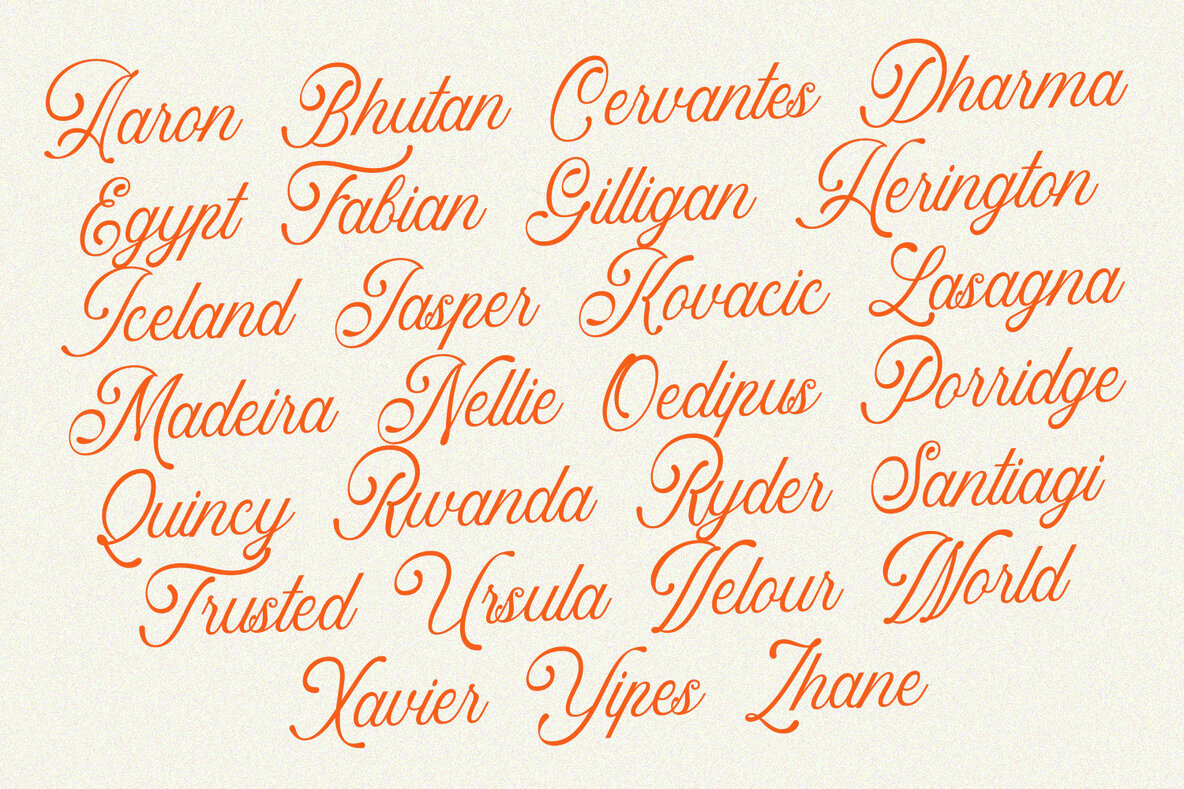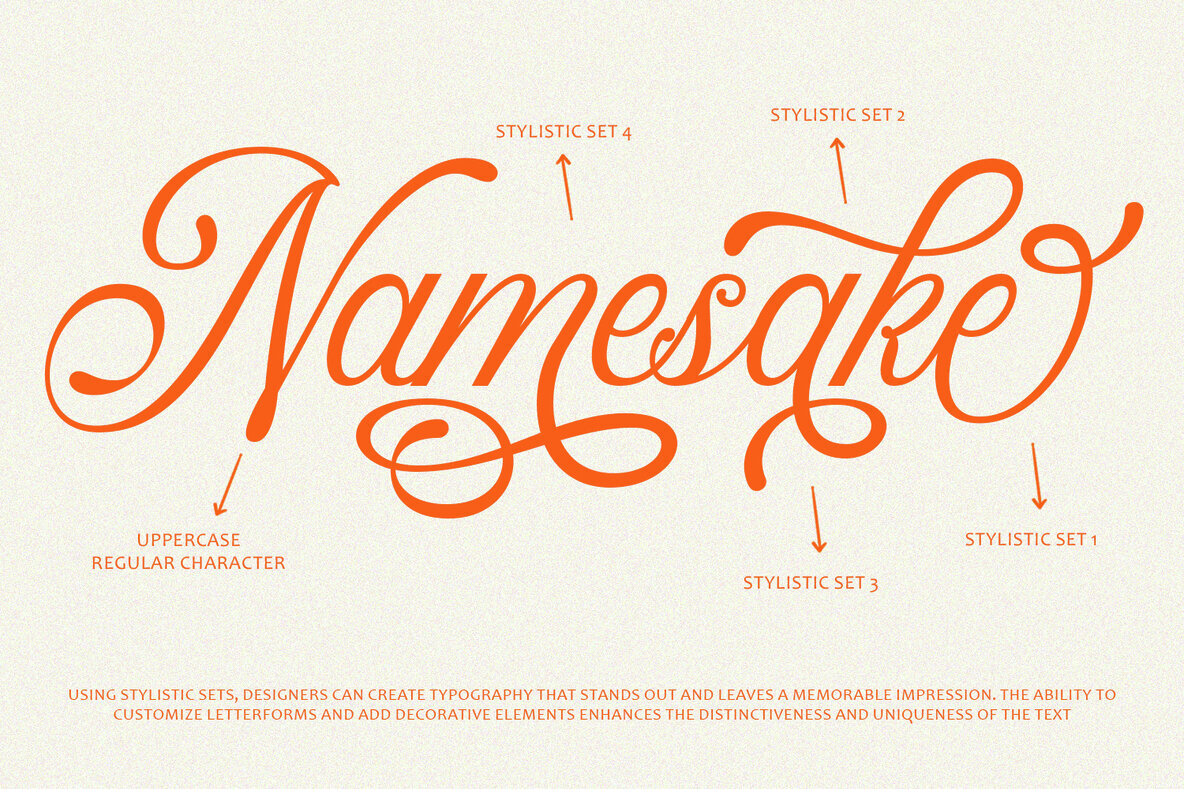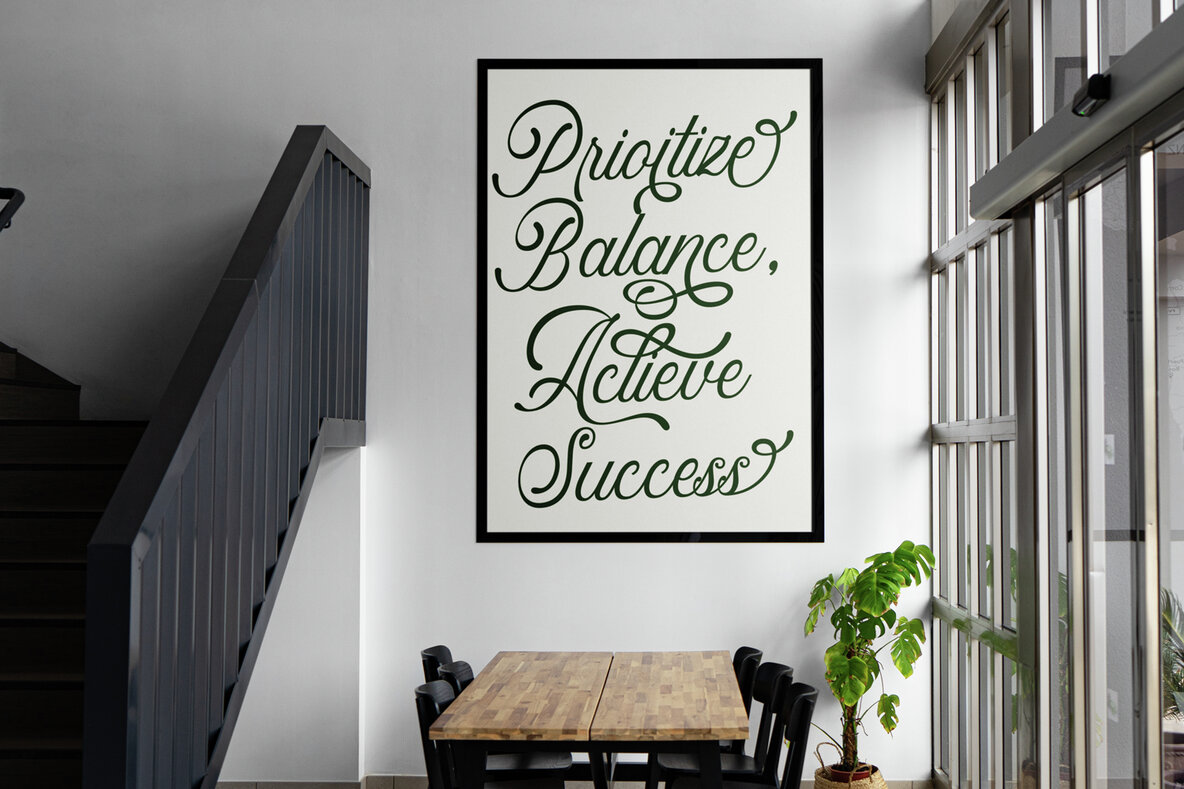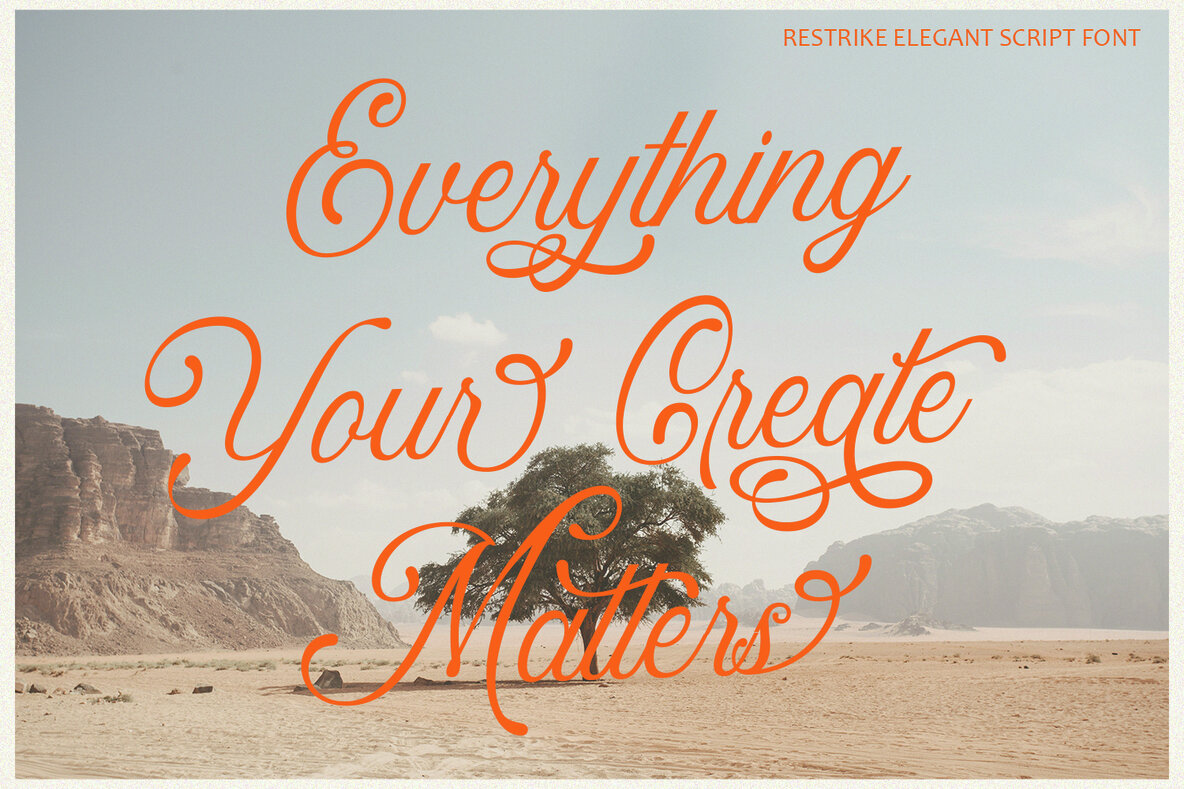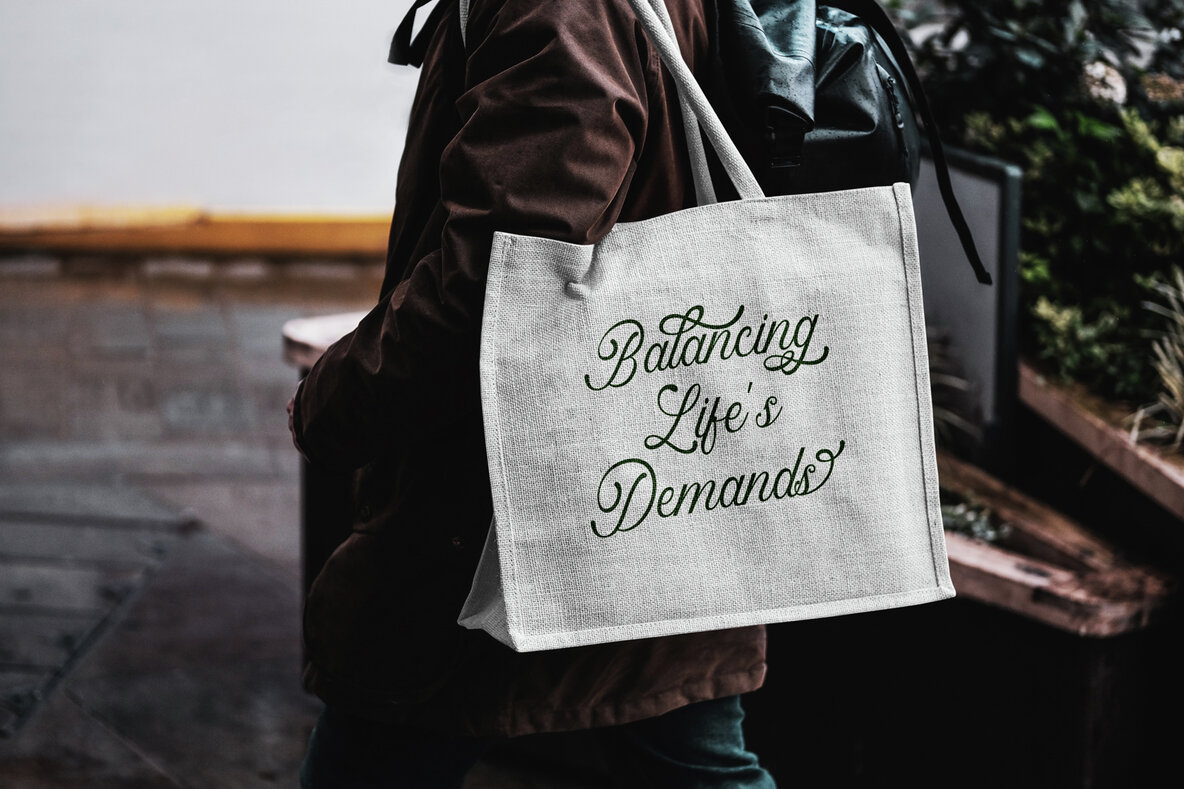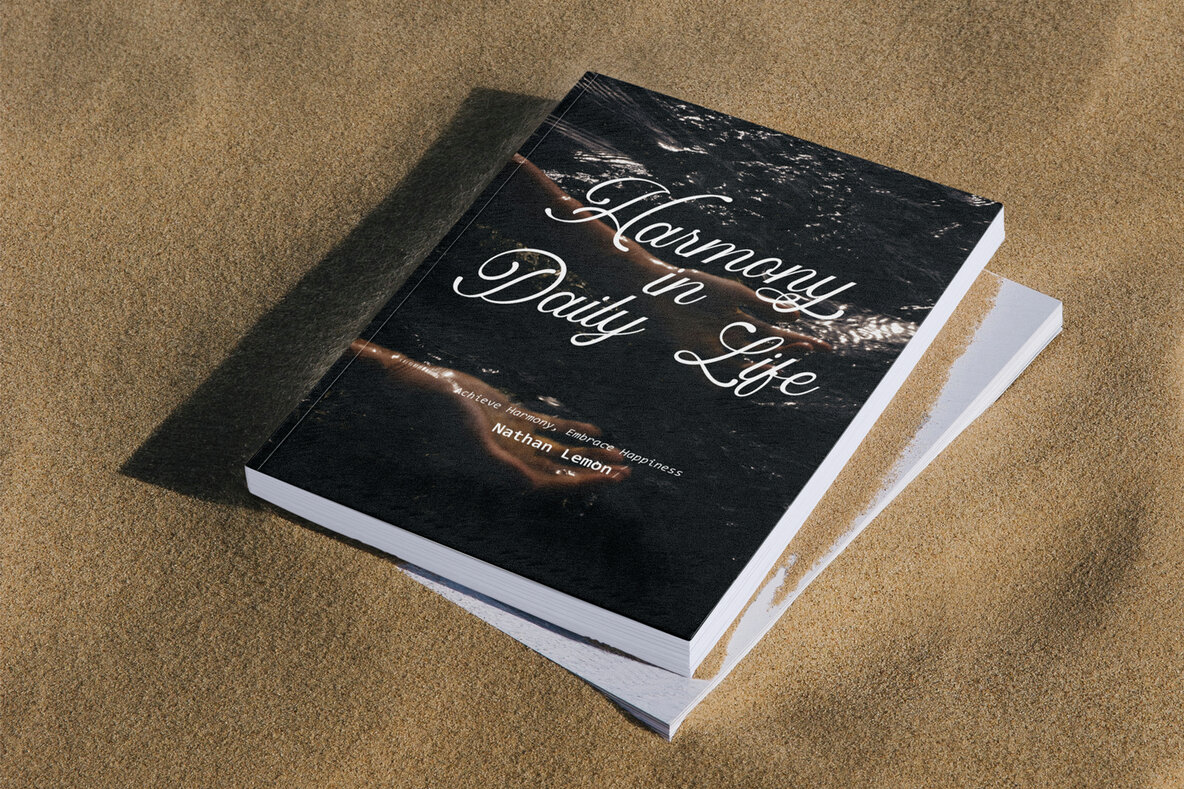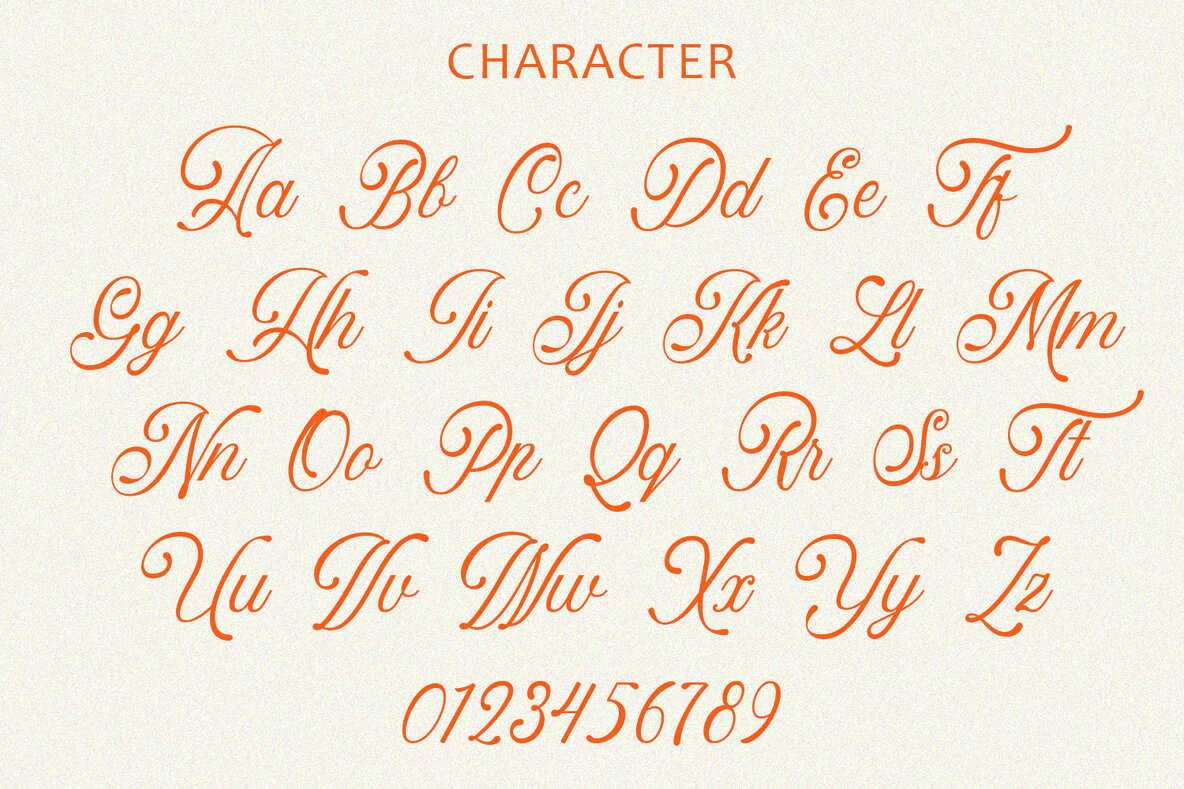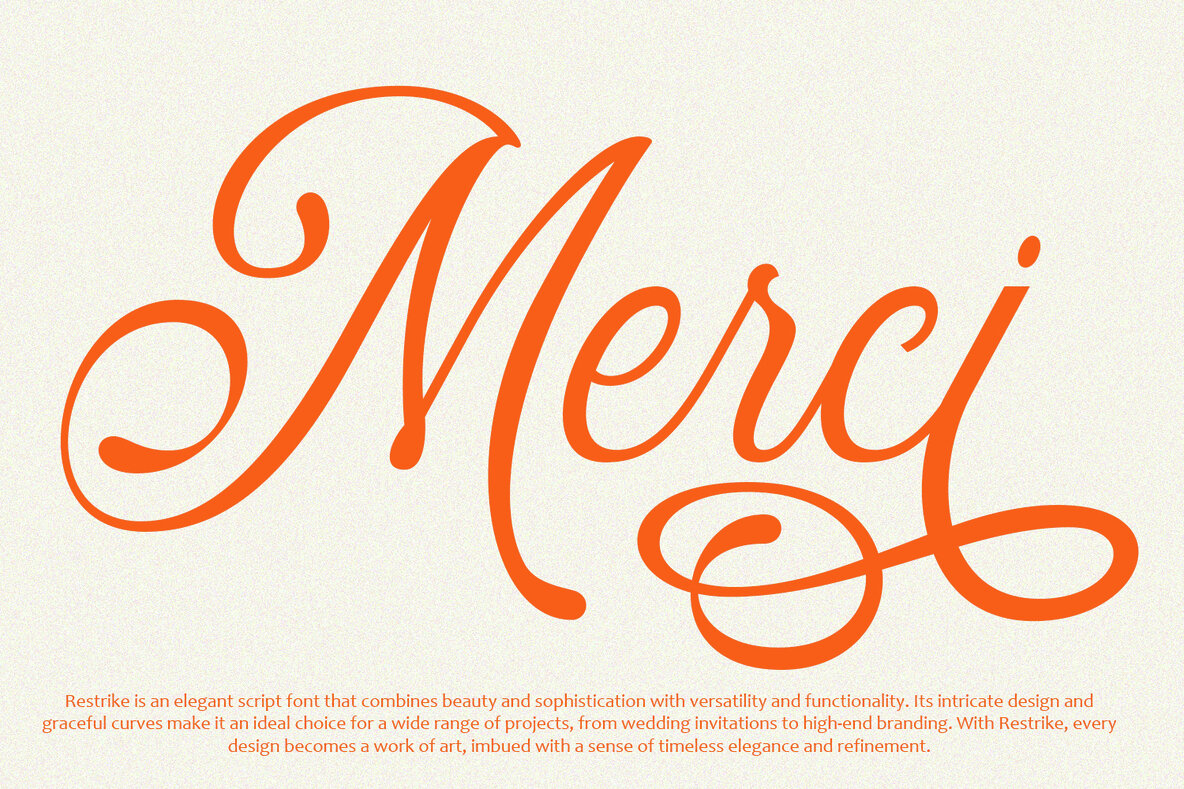
"Restrike" is an elegant script font designed to convey sophistication, grace, and a timeless aesthetic. Characterized by its flowing, cursive letterforms and refined details, "Restrike" is ideal for projects that require a touch of elegance and class. It combines traditional script elements with modern design sensibilities, making it versatile and suitable for various high-end design applications. Key Features of Restrike: Elegant and Refined Design: Versatile Usage: Extended Character Set: Stylistic Alternates and Swashes: High Legibility: Benefits of Using Restrike: Sophisticated Appeal: Versatile and Adaptable: Enhanced Visual Impact: Improved Readability: "Restrike" is an elegant script font that combines flowing letterforms, delicate strokes, and refined details to create a sophisticated and timeless aesthetic. Its versatile design, extensive character set, and customization options make it suitable for a wide range of high-end design projects. Whether used for wedding invitations, luxury branding, or elegant packaging, "Restrike" adds a touch of class and elegance, ensuring your designs are both visually stunning and memorable.